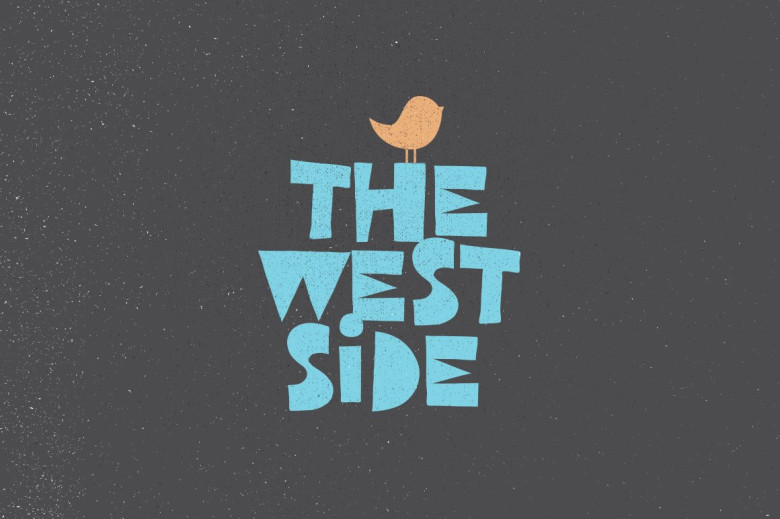
West Side Typeface
Good with a new display font. If you are looking for a display font for your design project then i will help you. Introducing West Side Typeface! West Side designed by Artimasa Studio, and shared by Pixelo. Inspired by 1980s handmade poster designs and illustrations, here we present to you a block-styled handcrafted typeface called West Side. West Side typeface can be used to quickly give a retro feeling in your design.